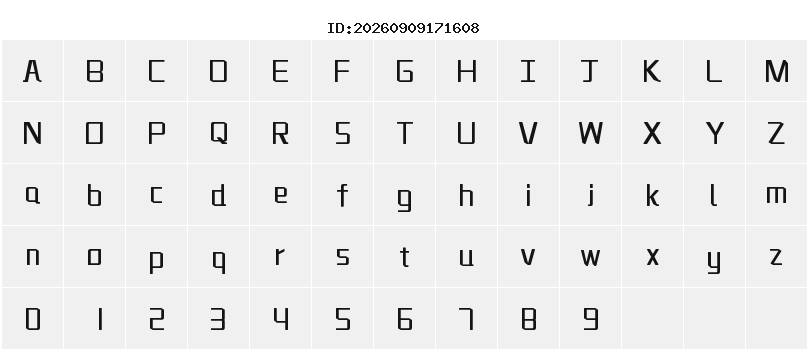
尔雅科技黑 Preview
• Font Name: 尔雅科技黑
About 尔雅科技黑.ttf
尔雅科技黑.ttf is a modern, elegant sans-serif font designed for ultimate readability and visual harmony. Perfect for branding, headlines, web design, and print materials.